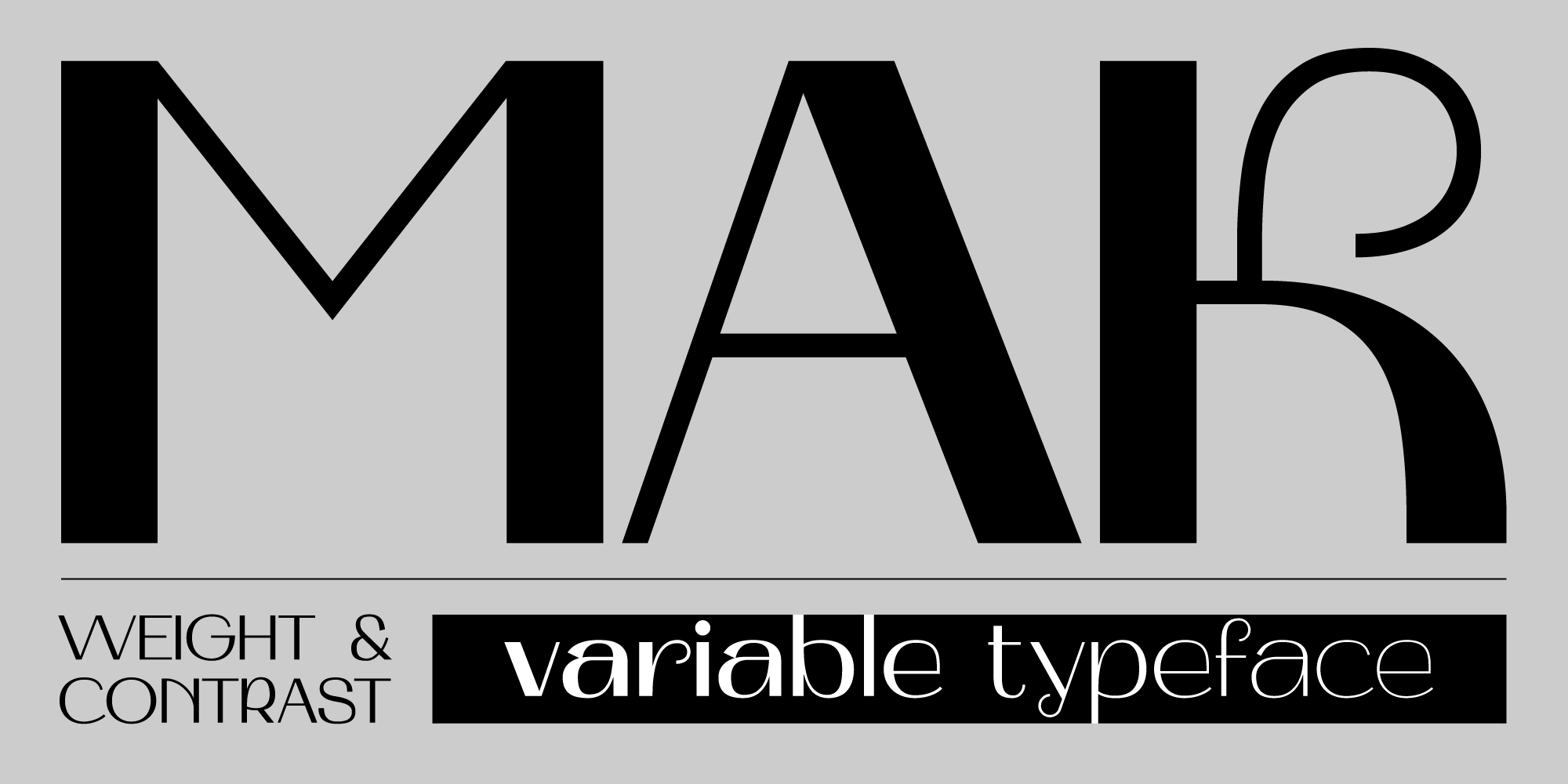
Mak Variable Font is perfect for responsive web design interfaces, dynamic app typography systems, adaptive brand identities, flexible digital marketing campaigns, variable design templates, interactive media presentations, scalable logo designs, modern UI/UX applications, progressive web interfaces, and contemporary digital publishing platforms. Its innovative variable character makes it ideal for projects requiring typographic flexibility and adaptive design excellence.
What makes Mak Variable Font exciting is its revolutionary embodiment of typographic innovation and design adaptability with variable letterforms and flexible characteristics that capture the essence of modern responsive design and digital typography excellence. The font features infinite weight variations, adaptive spacing controls, and dynamic character construction that create versatile design atmosphere and contemporary appeal. Its flexible personality brings innovation and efficiency to contemporary designs while maintaining the quality essential for digital communications and responsive presentations. The carefully engineered variable elements ensure seamless adaptability while preserving the distinctive character that embodies the essence of modern typography and design flexibility excellence.
Mak Variable Font comes in multiple adaptive variations including Ultra Light, Light, Regular, Medium, Bold, and Ultra Bold styles. Each family member maintains the distinctive variable character while offering comprehensive flexibility for responsive typography and adaptive brand system development. The complete font family includes variable axes controls, modern symbols, and flexible punctuation marks that provide extensive tools for creating dynamic design experiences and authentic variable typography storytelling.
Whether you're developing responsive brands, digital platforms, or adaptive design solutions, Mak Variable Font Free Download provides the typographic innovation needed to communicate across diverse devices and formats while maintaining consistent design quality and brand recognition. The font's variable appeal resonates with web designers, UX professionals, and digital innovators seeking authentic modern credibility and responsive sophistication. Its comprehensive character set includes variable controls and digital marks, making it perfect for creating complete adaptive brand systems and memorable responsive storytelling across diverse digital applications and flexibility-focused design projects that celebrate typographic innovation and modern design excellence.